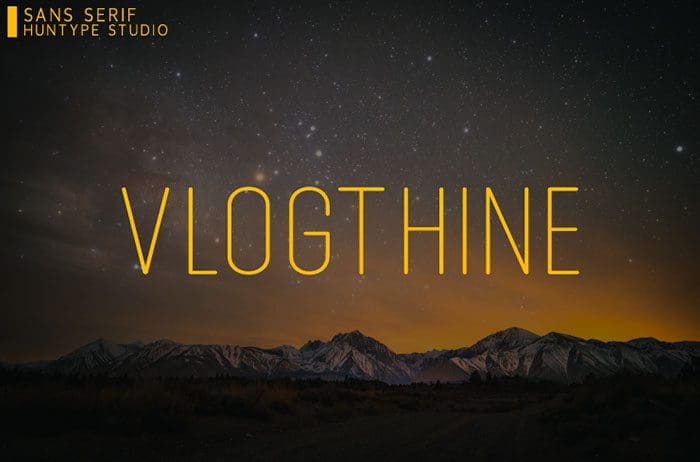
Vlogthine Sans Serif Font
Vlogthine is a fancy and modern sans serif font. Vlogthine will look outstanding in any context, whether it’s being used on busy backgrounds or as a standalone headline! Thanks to Mas Anis for sharing this font! Take a look at this portfolio for more of his stunning fonts.